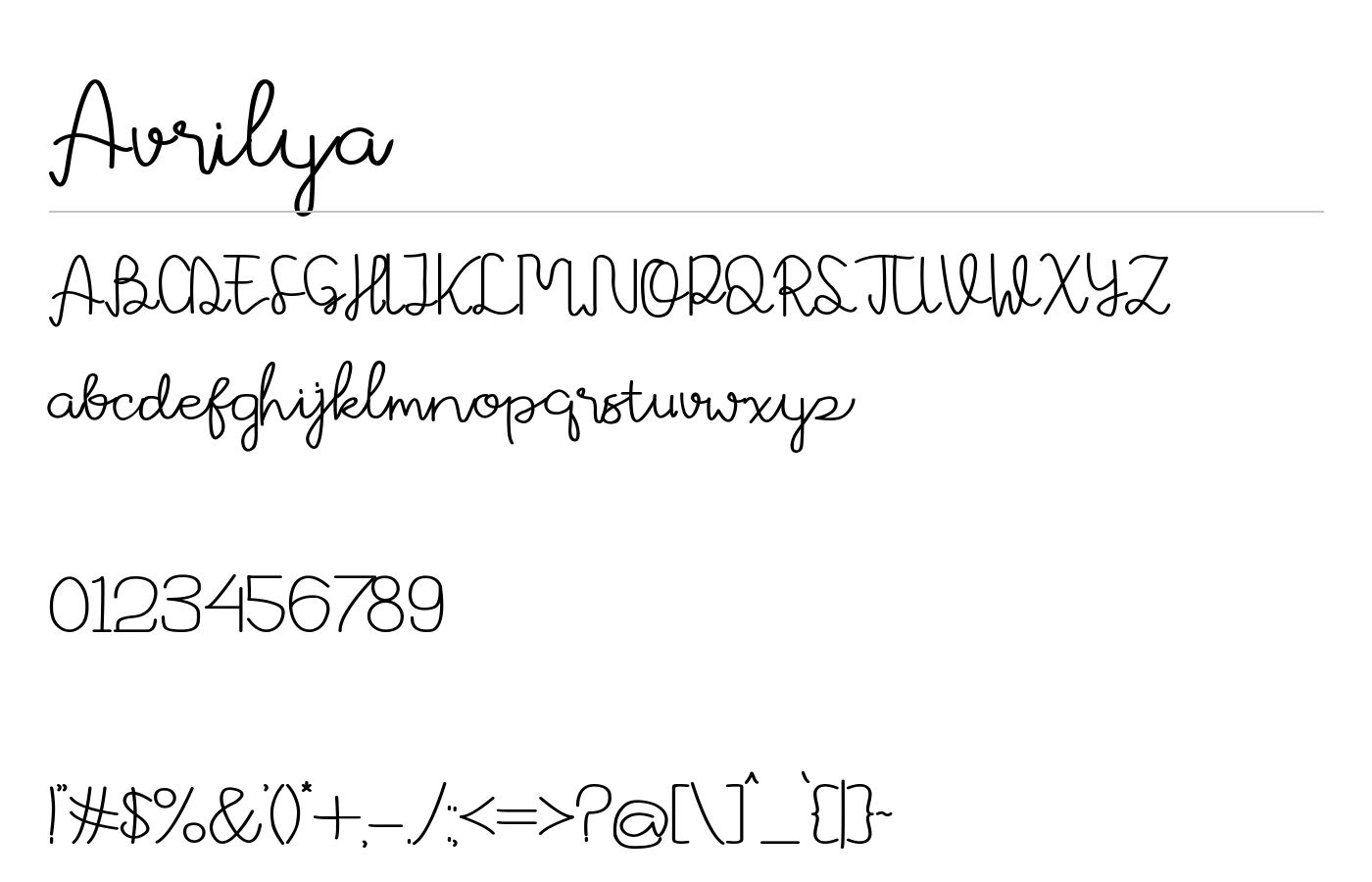
Avrilya is a delicate and playful script font with a handwritten style that blends casual charm with elegance. Its thin, flowing lines and simple, rounded letterforms create a light and airy feel, making it perfect for personal branding, invitations, and creative projects seeking a friendly yet refined touch. This font works beautifully for designs that want to convey warmth and approachability while maintaining a polished look.
Avrilya Font
About Avrilya Font